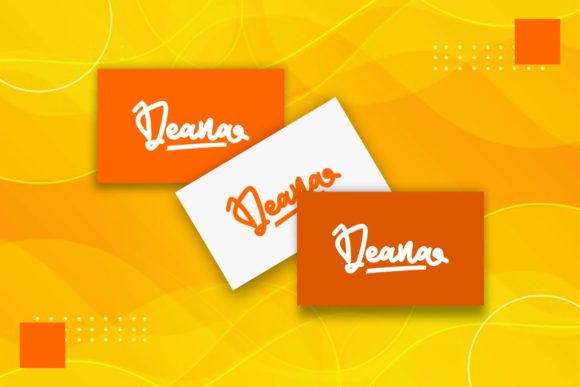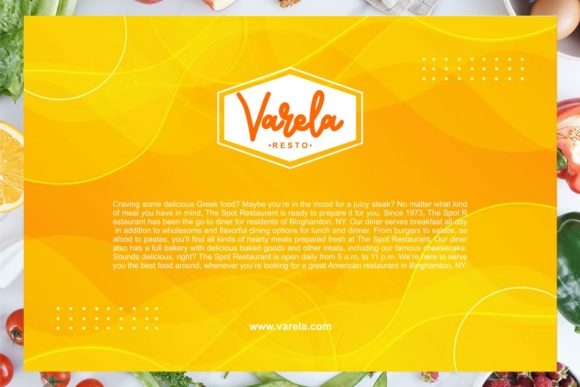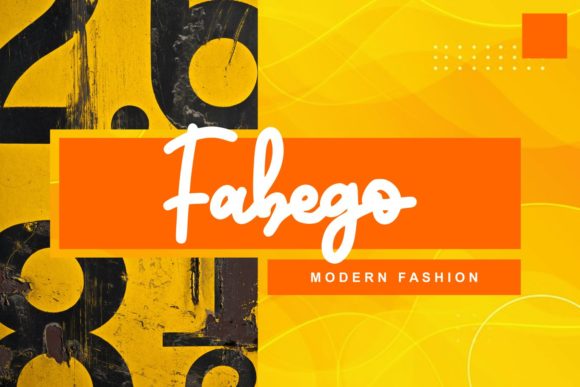
Introduction to Kubite Font
Have you ever been working on a creative project, pouring your heart and soul into it, and then, suddenly, the perfect font comes along and changes everything? For many designers, that moment is what makes all the hard work worth it. For those who are lucky enough to stumble upon the Kubite Font, it’s like discovering a treasure trove of design possibilities.
This sweet and unique handwritten font is a breath of fresh air in the world of design. With its relaxed and quirky vibe, Kubite Font is incredibly adept at adding a personal touch to any project, from posters and social media graphics to wedding invitations and branding materials.
Whether you’re looking for a free download to spice up your next design project or a high-quality font to elevate your professional portfolio, Kubite Font is a valuable resource that’s sure to deliver. With its transparent background and versatility, it’s the perfect design resource for creatives who want to stand out from the crowd.
Key Features of Kubite Font
- Unique and customizable font with a transparent background, ideal for digital designs.
- Includes a comprehensive character set, covering a wide range of languages and characters.
- Designed with a modern and minimalist aesthetic, making it a versatile choice for various design applications.
- High-resolution design, suitable for both print and digital use, ensuring crisp and clear typography.
Honest Review: Kubite Font
As a designer, I’m always on the lookout for high-quality design resources to enhance my creative projects. The Kubite Font caught my eye, and I was excited to give it a try.
Here’s what I liked:
- ✨ Unique and modern design aesthetic that adds a touch of sophistication to any project.
- ✨ High-quality font that’s perfect for digital design, from website headers to social media graphics.
- ✨ Transparent background option makes it easy to layer and manipulate the font in creative ways.
- ⚠️ Limited character set, which may not be ideal for longer texts or complex designs.
- ⚠️ Not ideal for print design, as the font may not render well on physical materials.
Overall, the Kubite Font is a solid addition to any designer’s toolkit. While it may not be perfect for every project, its unique style and high-quality design make it a valuable resource for creative professionals.
Tips for Getting the Most Out of Kubite Font
To maximize the potential of Kubite Font, use it in creative projects where a unique, high-quality font can make a significant impact. Consider using it in conjunction with other design resources to create a visually striking design.
Kubite Font is ideal for use in logos, branding materials, and other design elements where a distinctive, high-quality font is required. Its transparent background makes it easy to integrate into any design project, ensuring a seamless and professional finish.